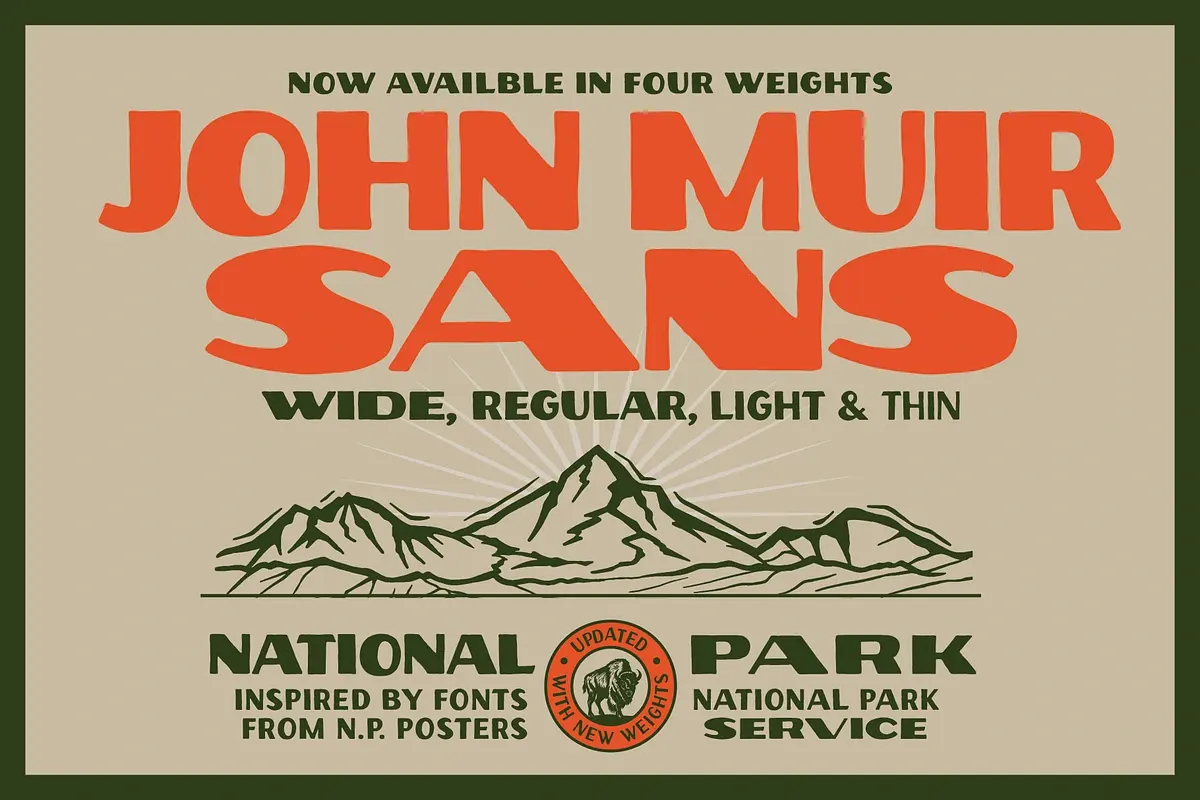
John Muir Sans – National Park Font Free Download
John Muir Sans – National Park Font Free Download is a clean, modern sans-serif typeface inspired by the rugged beauty of national parks and the outdoors. With its strong geometric forms and versatile style, this font is perfect for branding, signage, promotional materials, and designs related to nature, adventure, and conservation.
John Muir Sans embodies a sense of adventure and exploration, making it ideal for projects that celebrate the beauty of nature and the spirit of the outdoors. Whether you’re designing for national parks, outdoor gear brands, or eco-friendly businesses, this font provides a bold and professional look.